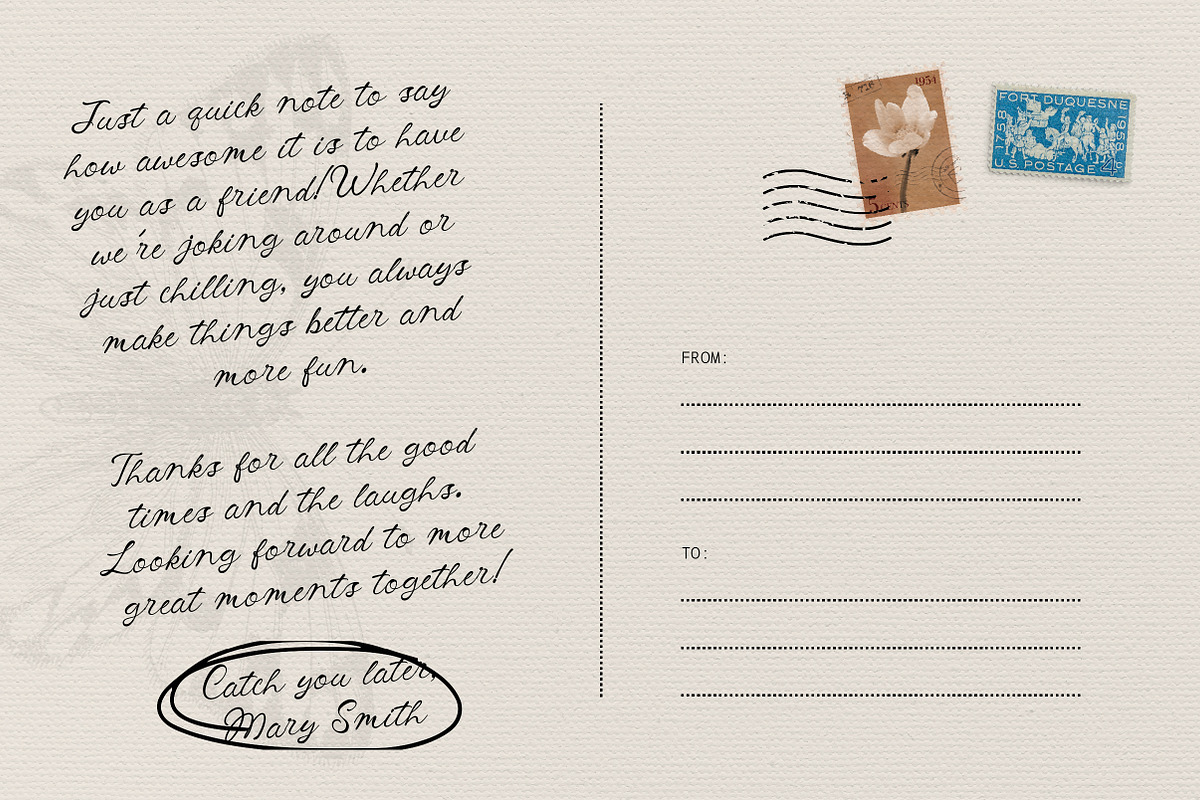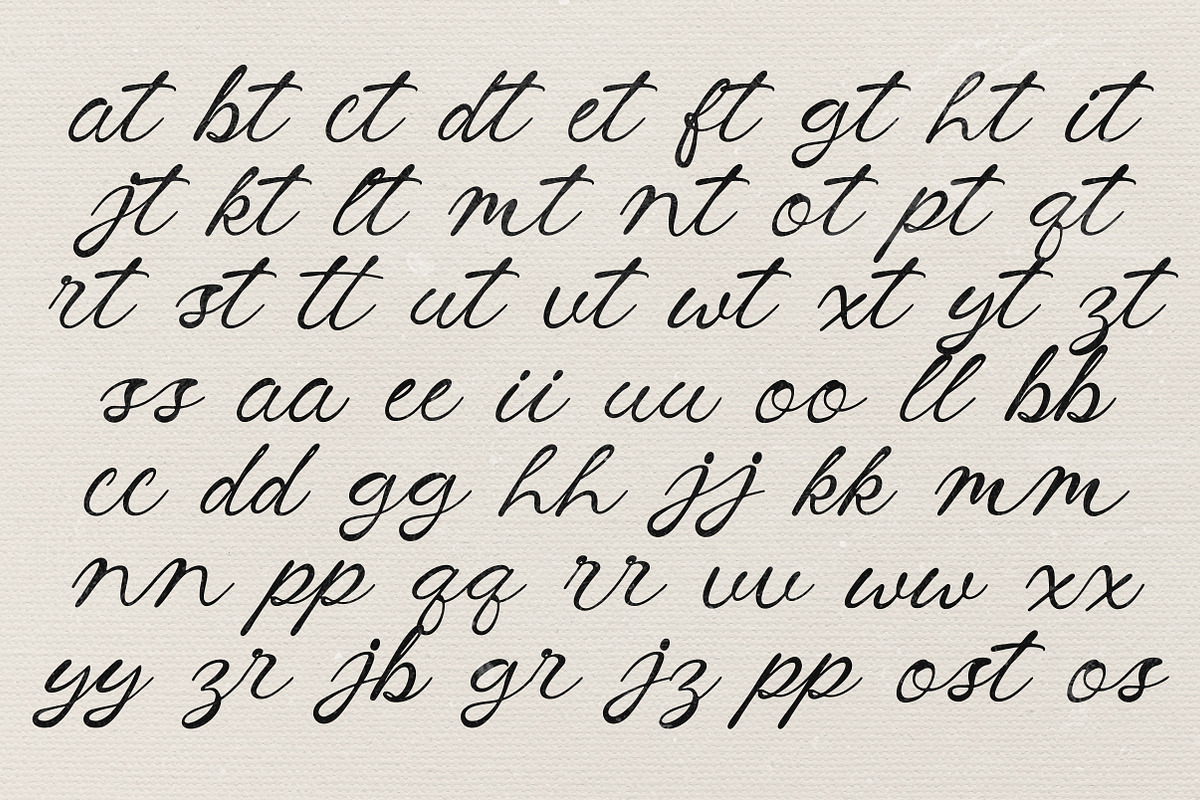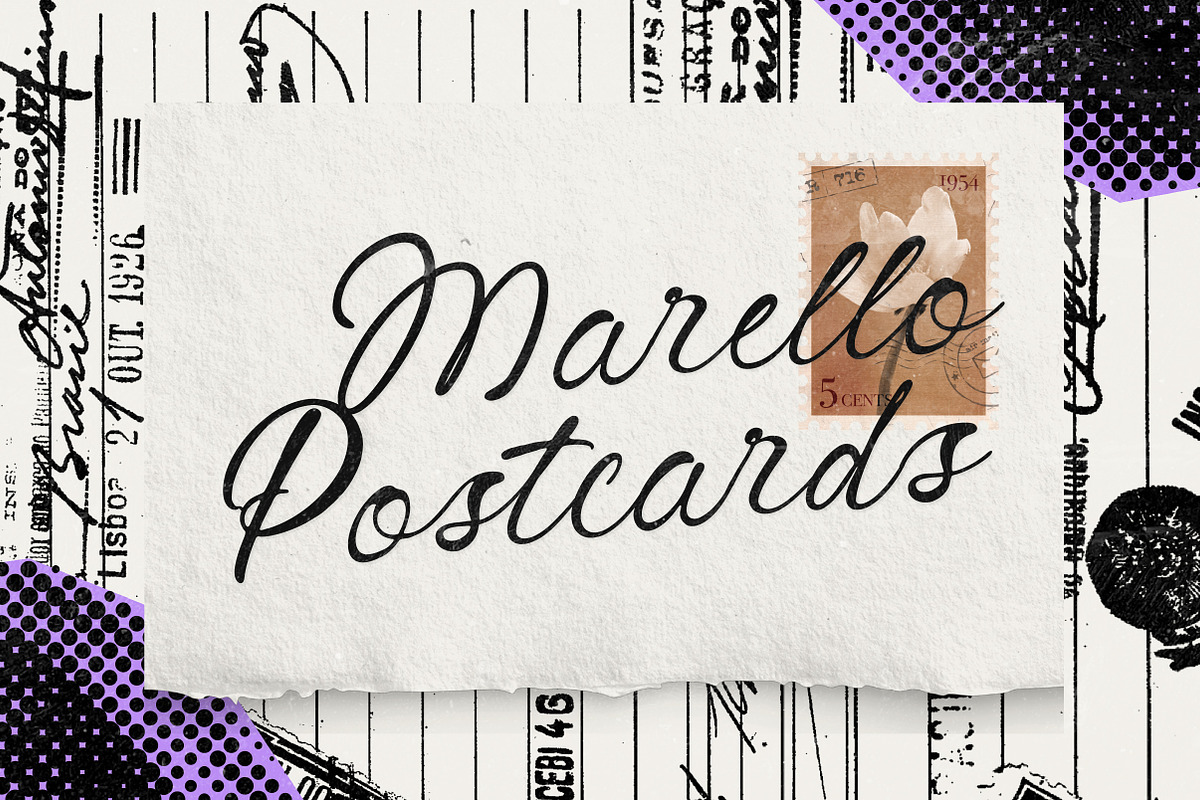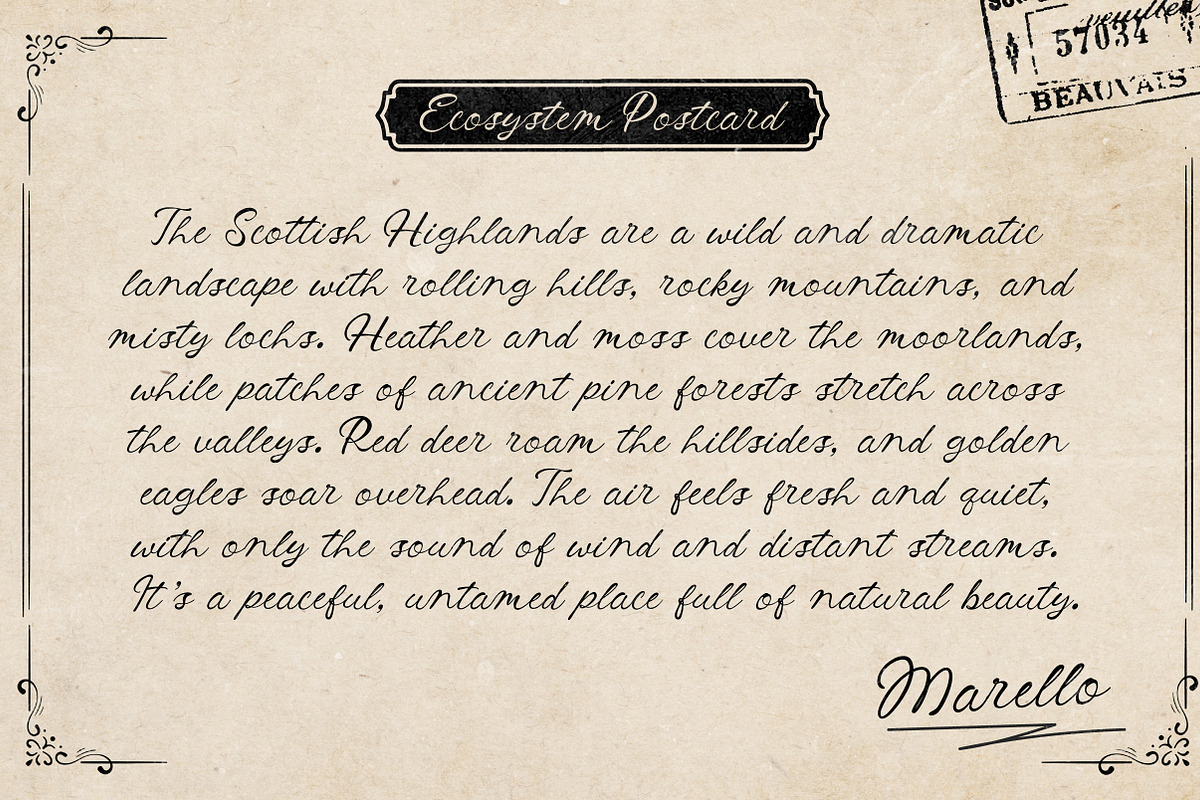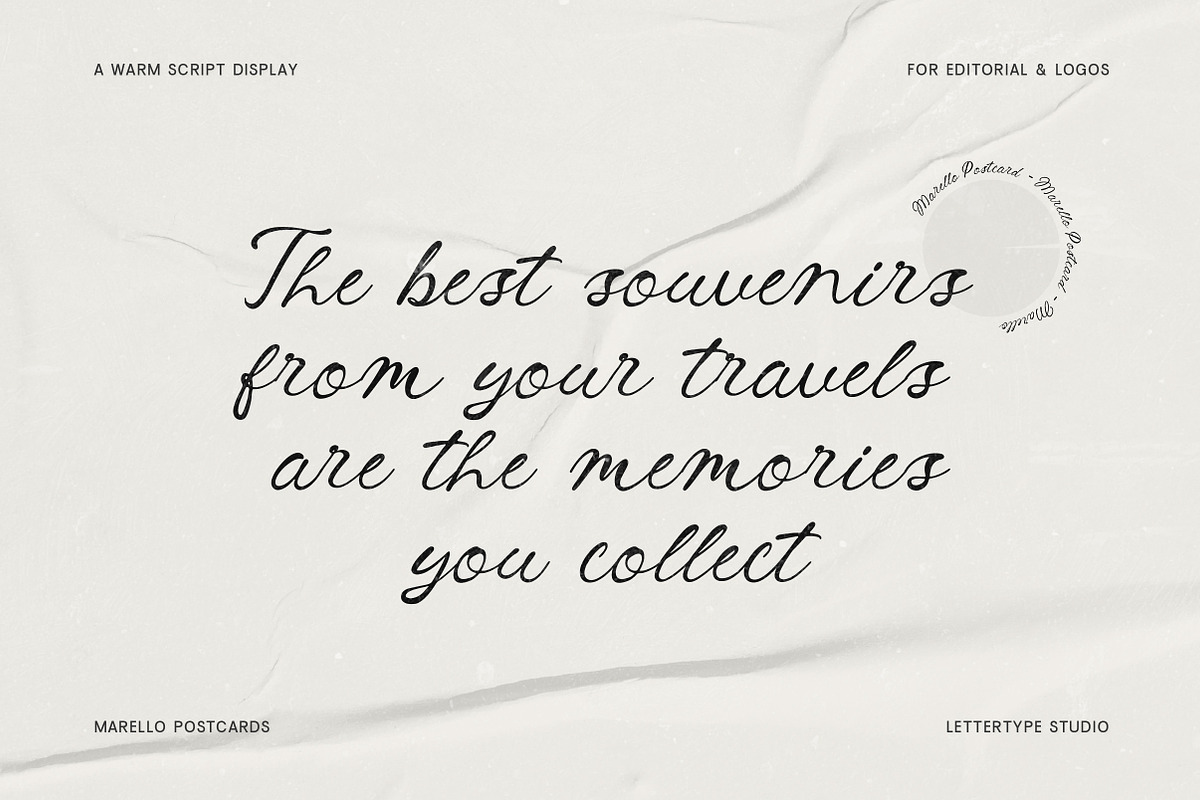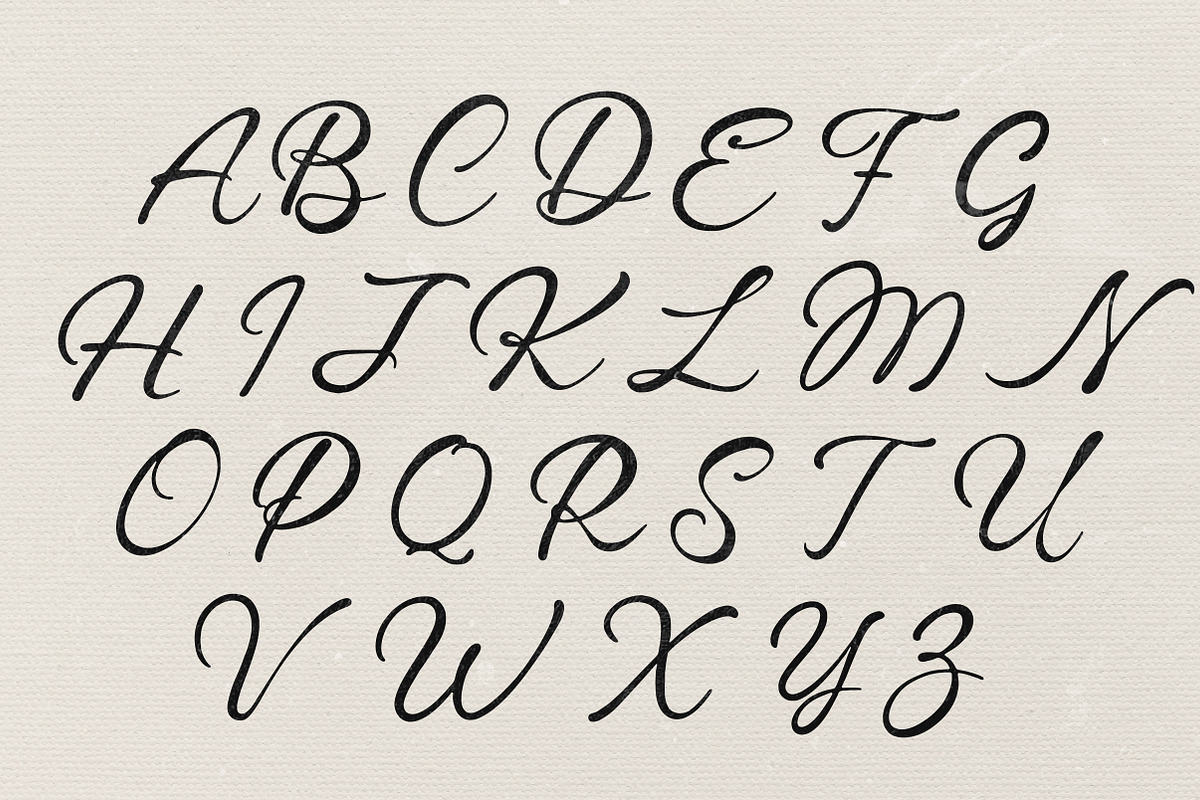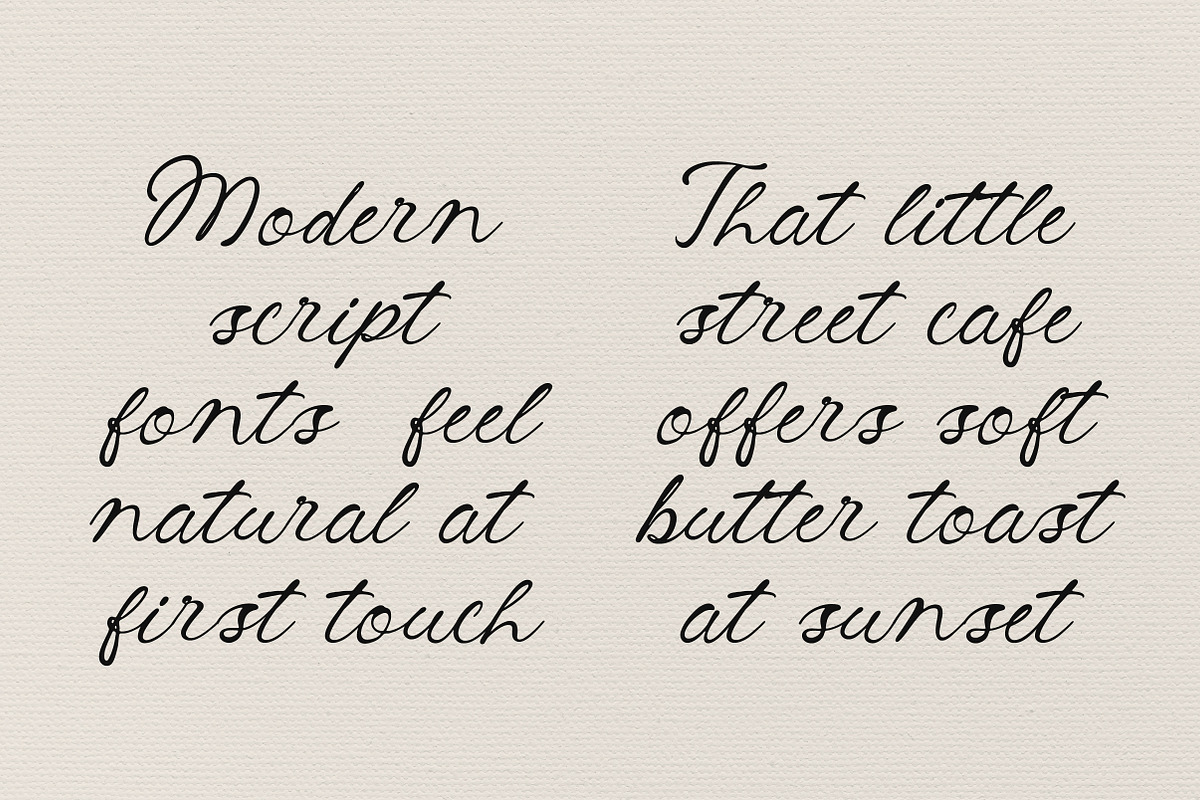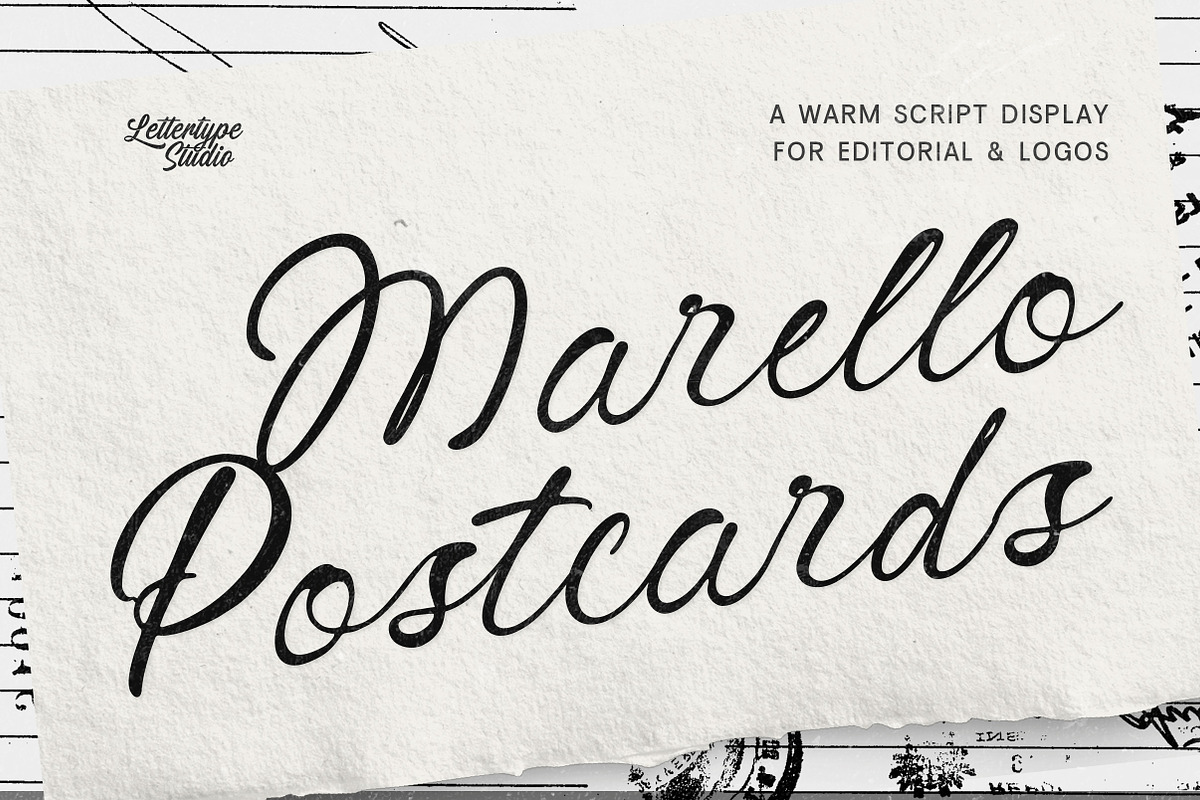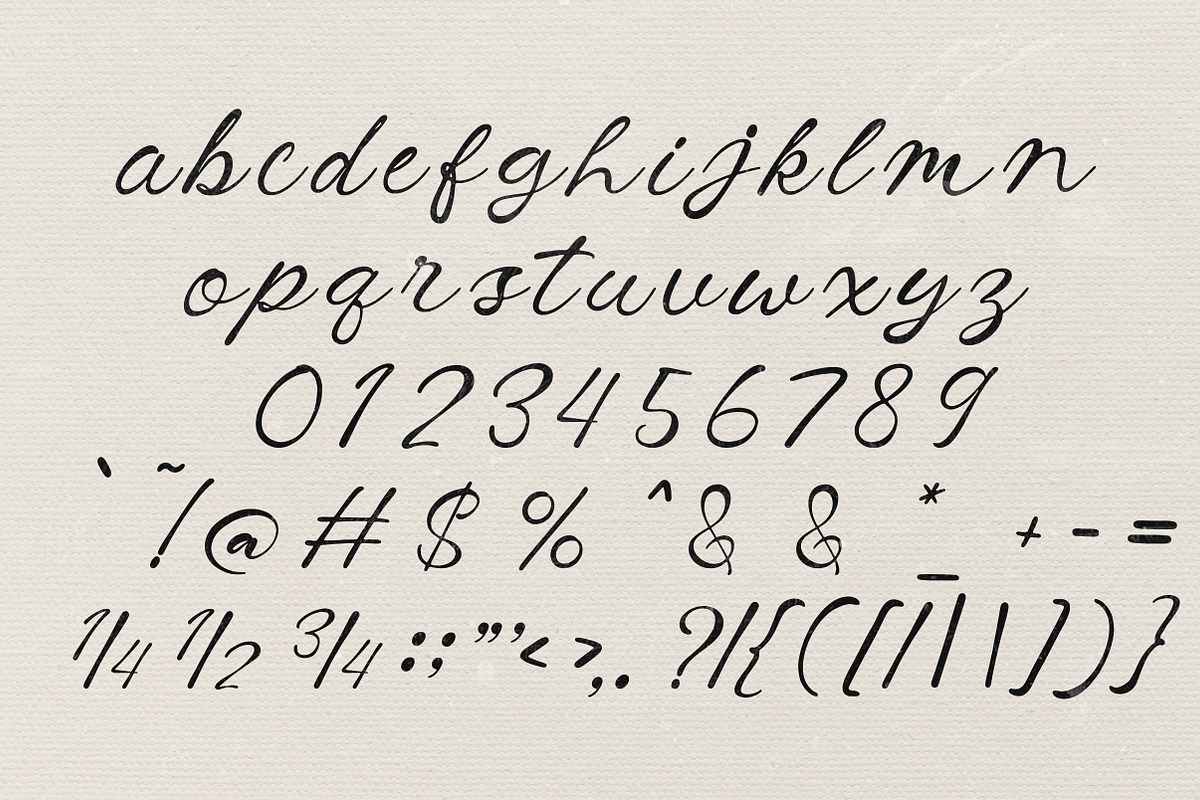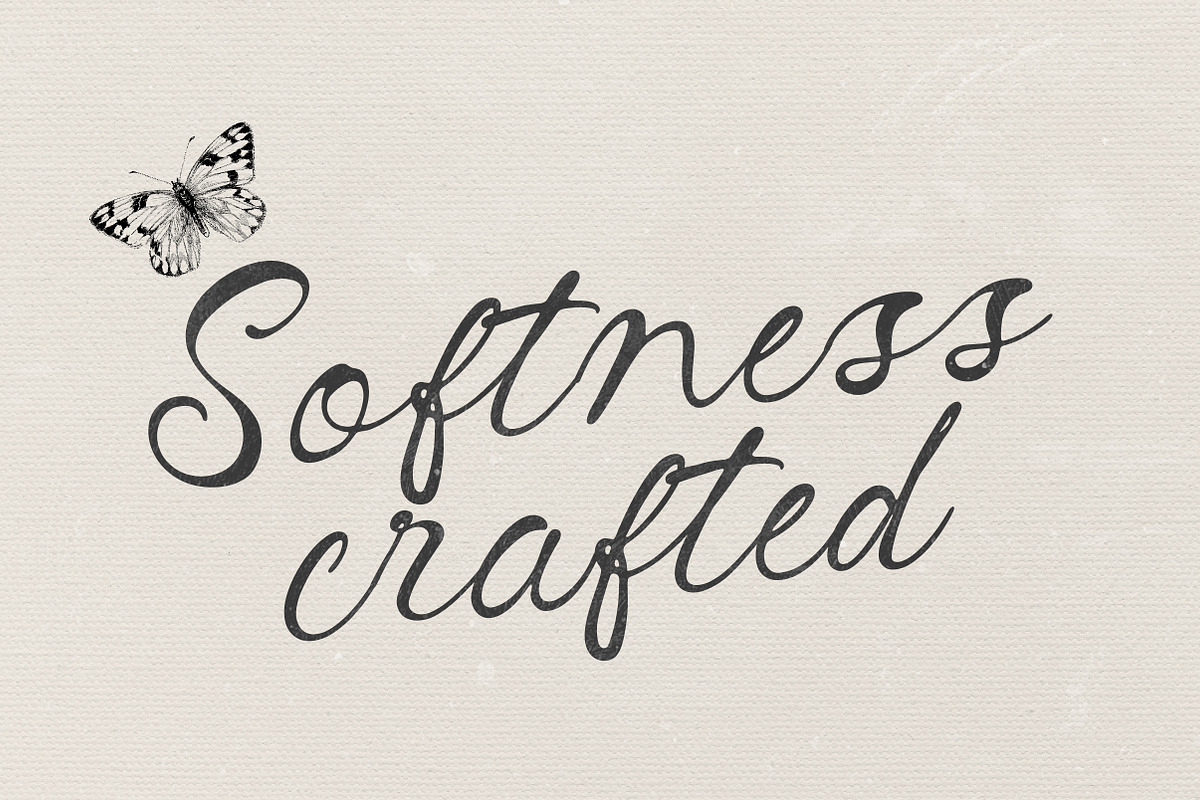
Marello Postcards - Warm Handwritten
Marello Postcards is a handwritten display typeface that captures the warmth of personal notes, travel memories, and nostalgic storytelling. Designed with organic strokes and natural rhythm, this font feels intimate, expressive, and human—perfect for designs that aim to feel personal rather than polished.
Whether used for postcards, journals, greeting cards, or branding with a handcrafted tone, Marello Postcards brings emotional character into every word. Its relaxed letterforms and friendly flow make it ideal for projects that want to communicate sincerity, warmth, and a sense of connection.
Marello Postcards Features:
1 Styles (Regular)
Expressive & smooth-flowing handwritten-style script construction
Standard Ligatures: ff, fi, fl, ffi, & ffl
Discretionary Ligatures set from at-az, aa-ZZ, os, ost, (55 total)
474 Glyphs Total
260+ Languages Supported
Postcards & greeting cards
Personal branding & lifestyle brands
Journals, diaries, and notebooks
Social media quotes & storytelling posts
Creative packaging & handmade products